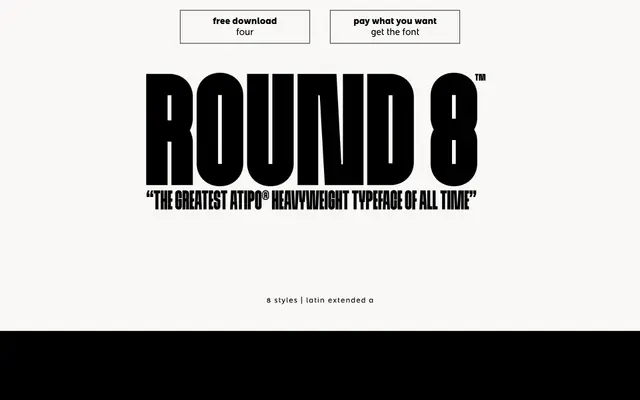
Round 8
atipo foundry · Raul Garcia del Pomar, Ismael Gonzalez (atipo) · 2023
Atipo's heavyweight rounded display, supplied as eight numbered cuts that step from light to black across a wide Latin extended language set.
A rounded display by atipo, billed by the studio as their heavyweight typeface. The family is supplied as eight numbered cuts, One through Eight, that read as a graded weight system from the lightest to the heaviest end. Carries fractions, superiors and ordinals along with a deep Latin extended character set covering more than a hundred languages. Sits in identity, packaging and editorial work that wants the softness of rounded geometry alongside genuine display heft.
Atipo bill Round 8 as their heavyweight rounded display, supplied as eight numbered cuts that read as a graded weight system across a wide Latin extended language set.
OneTwoThreeFourFiveSixSevenEight